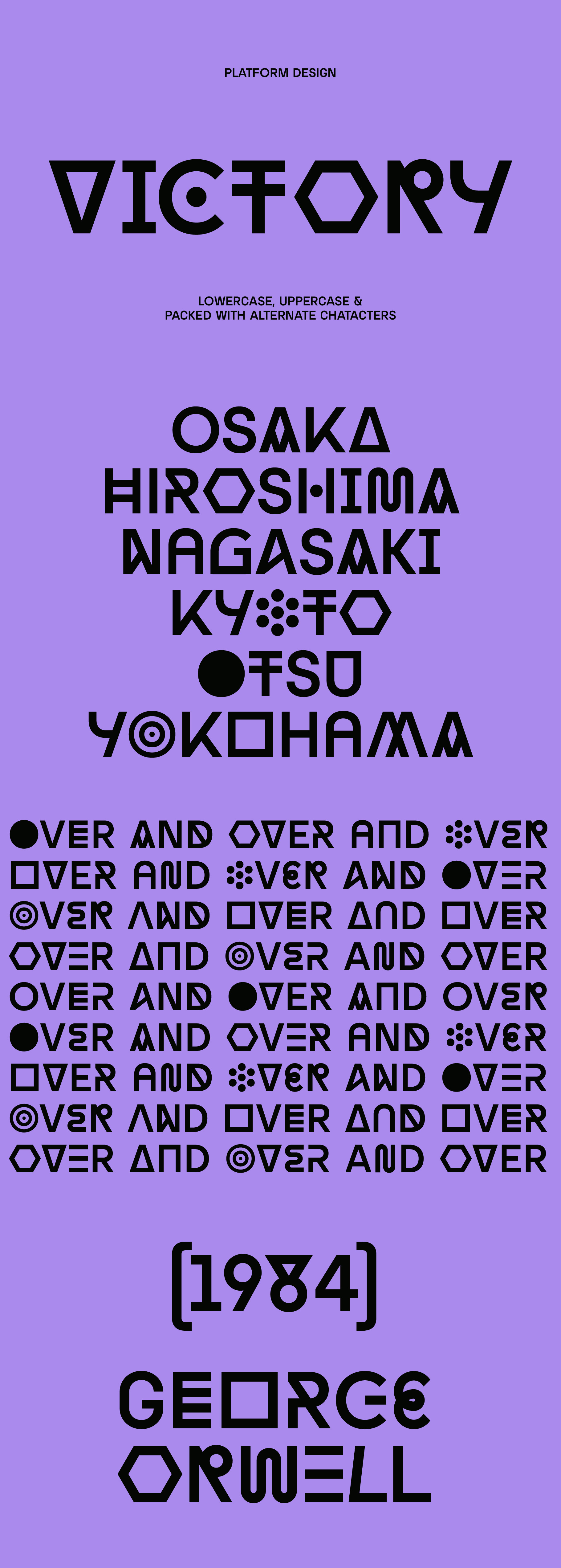
Victory – Futuristic Display Font
Introducing our new typeface, Victory - A geometric, decorative and futuristic display sans-serif typeface that comes 250+ glyphs with numerous alternate characters perfect for creating variety in your designs.
This is a display font that we recommend using in the following types of work; magazines (titles and layouts), logos and branding, invitations, quotes, posters, advertising and album covers.